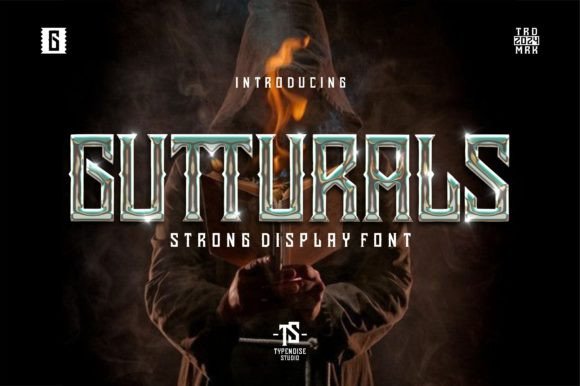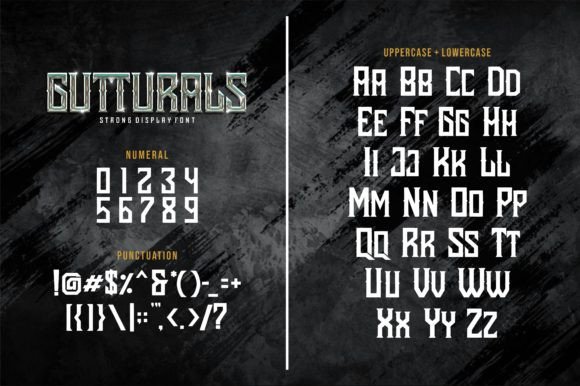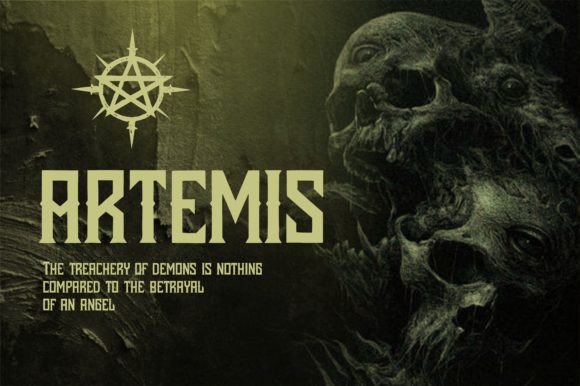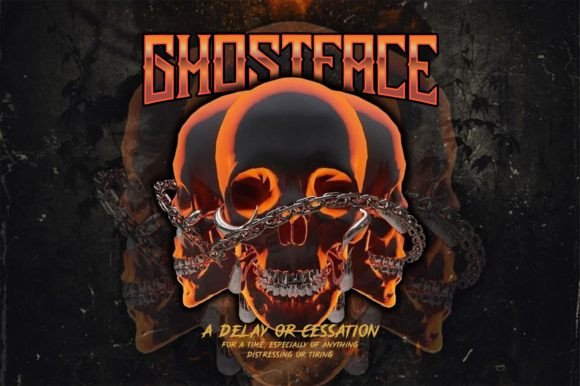
Gutturals Font: Bold Blackletter for Unique Logo Design & Posters
About the Gutturals Font
Let us introduce you to Gutturals Font, where timeless design meets modern craftsmanship. Gutturals is a bold and thick lettered blackletter font. Add it confidently to your projects, and you will love the results.
Gutturals excels in headline applications, short impactful statements, and branding projects requiring a strong, authoritative presence. Its bold weight commands attention, making it ideal for posters, logos, and packaging where a powerful visual message is key. However, its thick strokes and complex letterforms render it unsuitable for body text or extended reading. Small sizes are also less legible.
The aggressive, high-contrast nature of Gutturals benefits from pairing with a clean, neutral sans-serif like Open Sans or a more geometric sans-serif such as Futura for balance. For a softer contrast, consider a delicate serif like Garamond or a script font with thin strokes – but only for very limited use and as a subtle complement, not a co-star.
Gutturals projects a bold, confident, and slightly rebellious personality. It’s best suited for brands and projects that want to convey strength, authority, and a touch of edginess. Avoid using it in contexts that require approachability or delicate aesthetics.